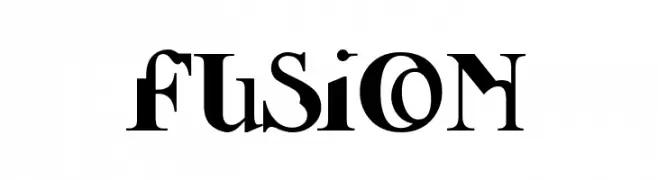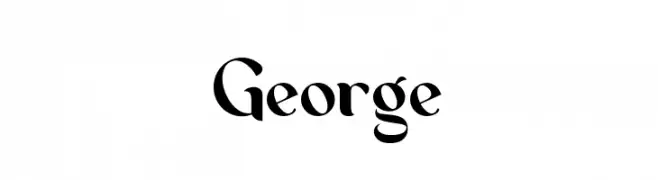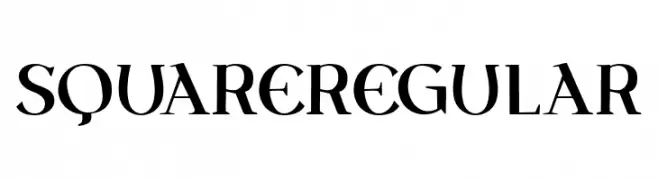
( Fonts by Mukunda Sarkar )
A playful, comic-style font with a hand-drawn, whimsical appearance.
A bold, decorative font with a blend of modern and vintage styles.
A stylish font with elegant curves and bold strokes, blending classic and modern elements.
A bold, decorative font with a blend of modern and vintage styles.
A decorative font with a blend of modern and vintage styles, featuring ornate uppercase and structured lowercase letters.
A bold, artistic serif font with a blend of classic and modern elements.
A decorative serif font with a blend of modern and classic elements, featuring ornate uppercase and traditional lowercase letters.
A bold, angular font with a modern and vintage blend.
An elegant serif font with a blend of classic and modern elements, featuring refined serifs and graceful curves.
An elegant and sophisticated font with a blend of classic and modern elements.